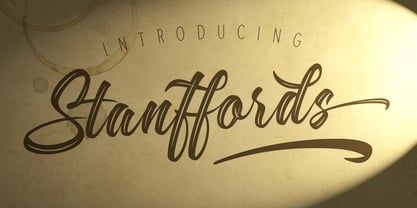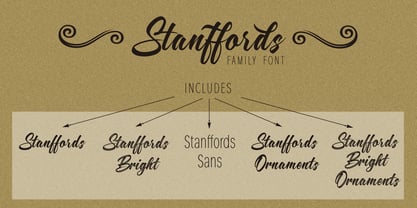
Stanffords
by Eurotypo
Stanffords Font Family was designed by Carine de Wandeleer and published by Eurotypo. Stanffords contains 5 styles family package options.
The early Twentieth Century was a golden age for cinema, and for the artists who lettered the iconic title sequences. Stanffords Family evokes the soul of this vintage brush lettering with a modern twist. Its main characteristics are bouncy baseline, round forms. These qualities give Stanffords its casual, friendly and handmade looks. The font family is characterized by excellent legibility in both - web & print design areas, well-finished calligraphic designs, optimized kerning etc. Stanffords Family include 5 fonts: Stanffords, Stanffords Bright, Stanffords Sans and Stanffords Ornaments and Stanffords Bright Ornaments (sets of 86 ornaments) to combine and give options to your typographic elements and designs. Stanffords is a very versatile script font: it includes initial forms, and a generous complement of alternate characters, ligatures and ornaments, creating a genuine connecting hand-painted look in dynamic OpenType format. You have a lot of options to customize it and that makes it perfect for logos, packages, titles, food packaging, t-shirts, blogs, photo books, wedding and invitation stationery and for everything you think necessary ... You get the idea!
Designers: Carine de Wandeleer
Publisher: Eurotypo
Foundry: Eurotypo
Design Owner: Eurotypo